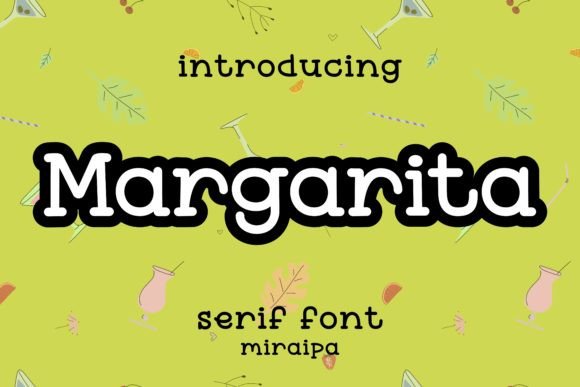
Welcome to the world of Margarita Font! Created by the talented miraipa, Margarita is a cute and friendly handwritten serif font that will bring a touch of whimsy to any project. Whether you're working on Easter decorations, back-to-school posters, or Christmas cards, Margarita is the perfect font to give your designs a fun and playful feel.
This font family is perfect for all of your DIY projects, from party decorations and invitations to social media posts and clothing designs. With its unique and eye-catching style, Margarita is sure to make your creations stand out.
Margarita is designed to be versatile, making it suitable for a wide range of projects. Its handwritten style adds a personal touch, making it ideal for child-related designs, greeting cards, and diary planners. It's the perfect font for any project that needs a friendly touch.